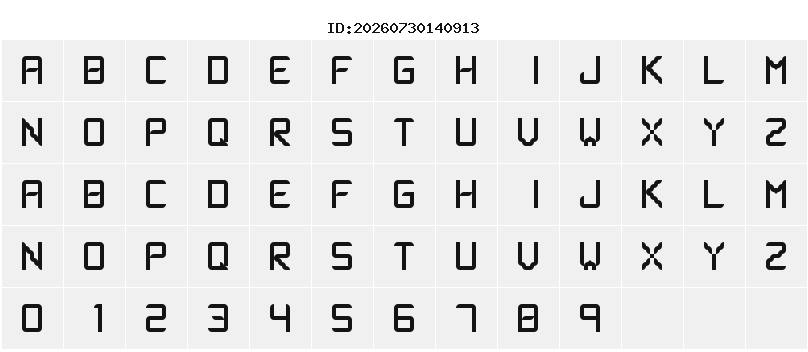
lsfont Preview
• Font Name: lsfont
• Font ID: FontStruct lsfont
• Full Font Name: lsfont Regular
• PostScript Name: lsfont
• Character Count: 119
• Designer: lukskorianez
• Description: “lsfont” was built with FontStruct
About lsfont.ttf
lsfont.ttf is a modern, elegant sans-serif font designed for ultimate readability and visual harmony. Perfect for branding, headlines, web design, and print materials.